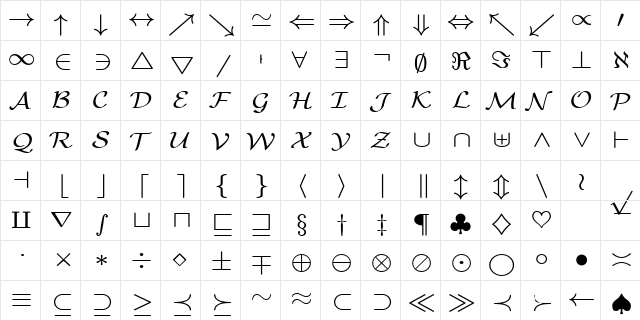
cmsy6 Regular
Design Context for cmsy6 Typeface
cmsy6 is a composed and adaptable typeface that performs quietly and consistently across a wide range of design contexts.